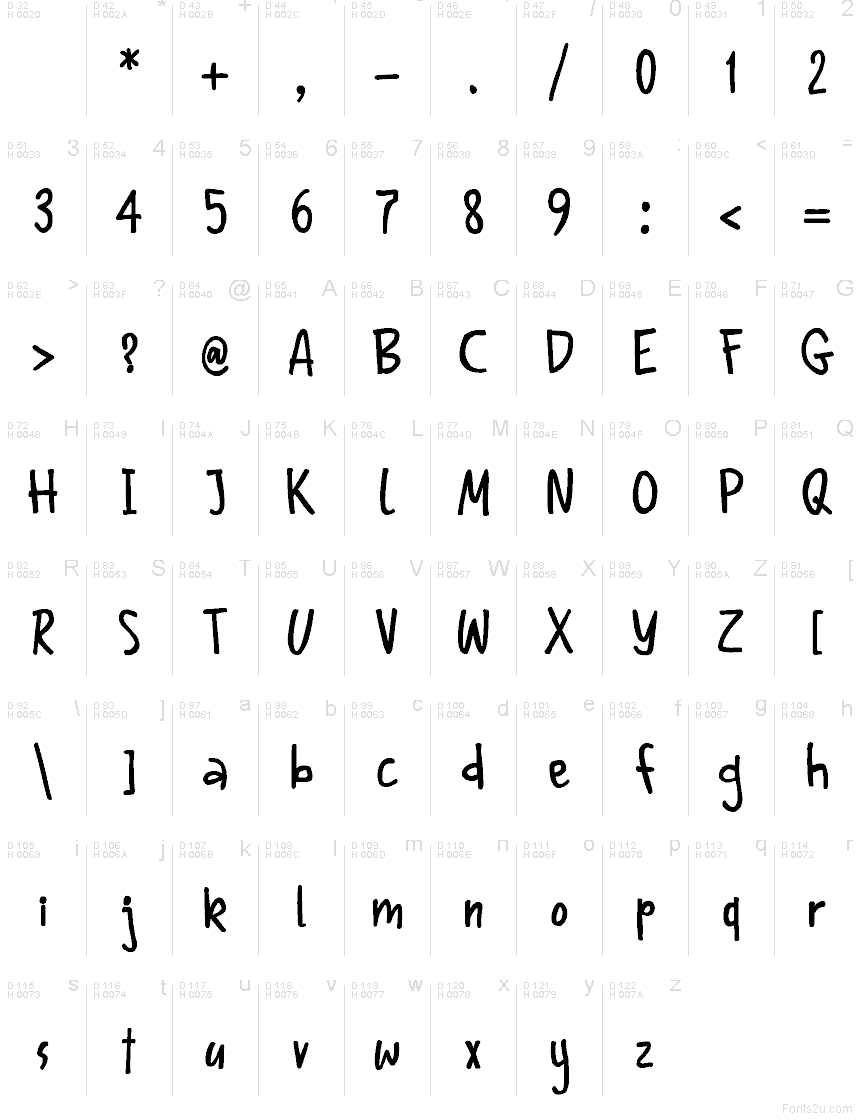
Malem font by Musthafa Kamal Emje - Afkari Studio is a free handwritten font that gives you that casual, marker-pen feel without sacrificing clarity. Its tall, slightly bouncy letters and thick, inky strokes feel like quick notes on a whiteboard-friendly, informal, and still very readable at smaller sizes. The rhythm is loose but not messy, so your designs keep their personality without tipping into chaos.
Using Malem, this free font shines on social media graphics, friendly brand logos, packaging, children’s book covers, greeting cards, and personal blogs. It works beautifully wherever you need a warm, human touch that still scans quickly. Pair Malem with a clean sans serif for body text, and let this handwritten typeface handle headlines and short phrases at larger sizes.